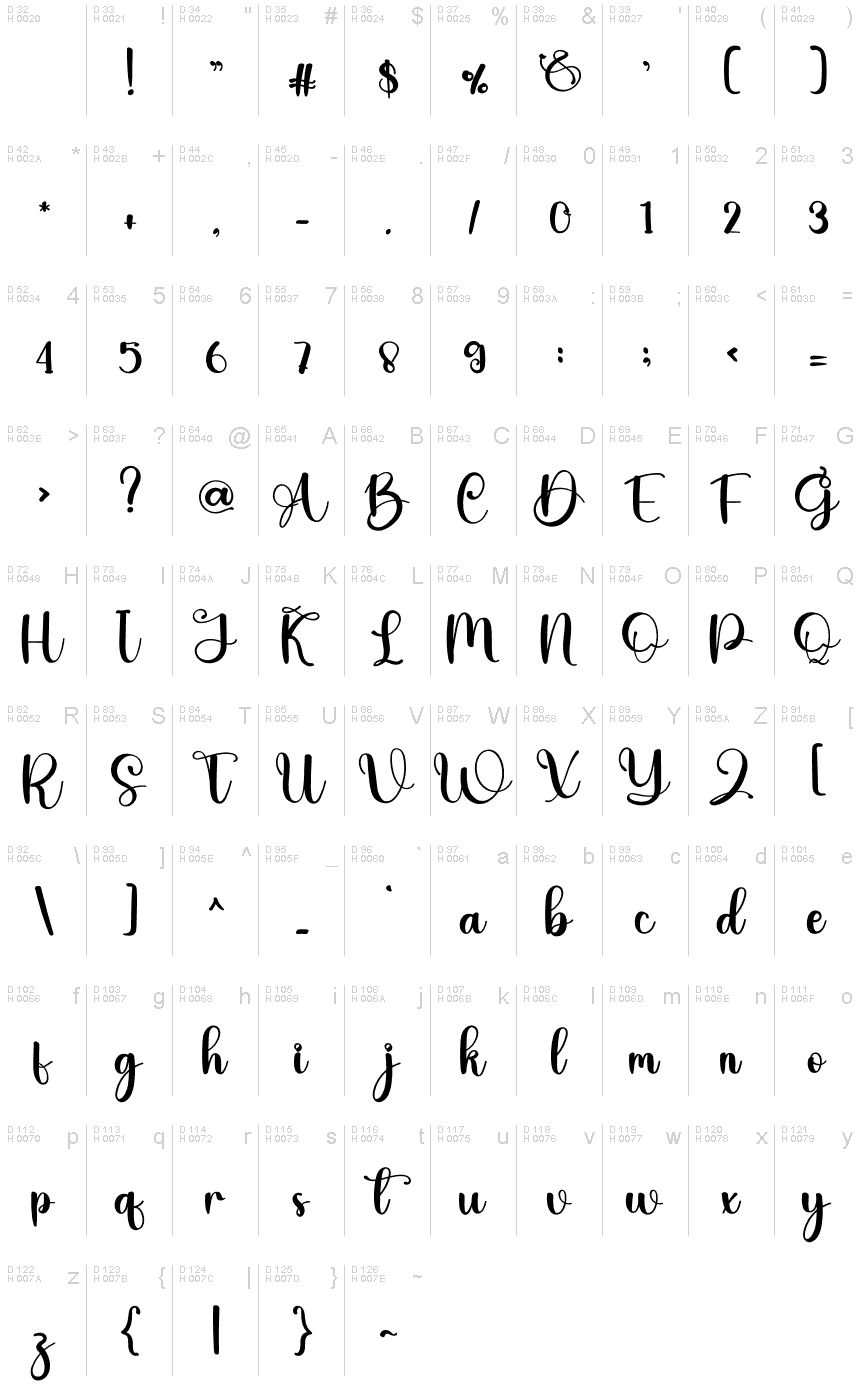
Town
Town, a mesmerizing calligraphy font by Inermedia Studio, adds an elegant and whimsical touch to any project. With its intricate curves and delicate strokes, this curly typeface brings a sense of grace and sophistication.
Perfect for wedding invitations, feminine branding, or enchanting poetry collections, Town effortlessly captures the essence of romance and beauty. Let your words dance across the page with this captivating font that will surely leave a lasting impression on any reader.